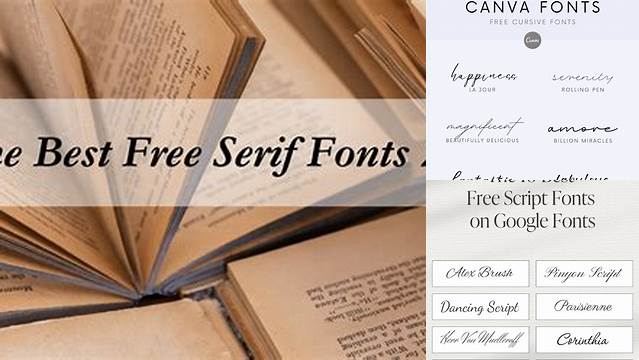
Best Free Script Fonts To Download In 2024
Are you looking for the best free script fonts to elevate your design projects? You've come to the right place! Script fonts, with their elegant and flowing strokes, can add a touch of sophistication and personality to any design. Whether you're working on wedding invitations, logos, website headers, or social media graphics, choosing the right script font can make all the difference. In this comprehensive guide, we'll explore a wide array of free script fonts, discuss their characteristics, and provide tips on how to use them effectively. We'll also delve into the nuances of script font styles, from classic calligraphy to modern brush scripts, ensuring you find the perfect font for your creative needs. So, let's dive in and discover the world of beautiful, freely available script fonts!
Understanding Script Fonts
Before we jump into the list of best free script fonts, let's first understand what makes a script font unique. Script fonts are designed to mimic the fluid strokes of handwriting, calligraphy, or brush lettering. They are characterized by their flowing lines, connecting strokes, and often, a touch of elegance or whimsy. These fonts can instantly add a personal and handcrafted feel to your designs, making them ideal for projects that require a human touch.
The beauty of script fonts lies in their diversity. You'll find everything from traditional calligraphic styles reminiscent of pen-and-ink lettering to modern brush scripts that have a more contemporary and casual vibe. Some script fonts are formal and refined, perfect for wedding invitations or upscale branding, while others are playful and energetic, suitable for children's books or social media graphics. Understanding the different styles of script fonts is crucial for selecting the right one for your project.
Moreover, it's important to consider the readability of script fonts. While their decorative nature is appealing, overly elaborate or thin scripts can be difficult to read, especially in smaller sizes or on screens. Legibility should always be a top priority, particularly when using script fonts for body text or essential information. We'll discuss tips for ensuring readability later in this guide.
Top Free Script Fonts for 2024
Now, let's get to the good stuff: the best free script fonts you can use in your projects today! This curated list includes a variety of styles to suit different design needs, ensuring you'll find something that resonates with your aesthetic. We've considered factors like readability, versatility, and overall visual appeal to bring you the cream of the crop. Remember, all the fonts listed here are free for personal and commercial use, but it's always a good idea to double-check the license before using them in your projects. Here are some standout options:
1. Brusher
Brusher is a bold and dynamic brush script that exudes energy and modernity. Its thick, textured strokes give it a hand-painted feel, making it perfect for logos, headlines, and anything that needs a touch of edginess. This free script font is particularly effective for designs that aim to stand out and make a statement. The rough, uneven edges of the letters add a unique character, setting it apart from smoother, more polished script fonts. Brusher is also highly legible, even in smaller sizes, making it a versatile choice for various applications. It works wonderfully for branding materials, social media graphics, and even apparel designs. The strong, assertive presence of Brusher ensures that your message will be heard and remembered. So, if you're looking for a script font that's both free and impactful, Brusher is definitely worth considering.
2. Sophia
Sophia is an elegant and graceful script font that embodies timeless beauty. Its delicate lines and flowing curves create a sense of sophistication, making it an excellent choice for wedding invitations, greeting cards, and other projects that require a touch of class. This free script font is characterized by its refined letterforms and subtle flourishes, adding a touch of artistry to any design. Sophia's versatility extends beyond formal occasions; it can also be used for branding, editorial design, and even website headers. The font's readability is excellent, thanks to its well-defined letter shapes and generous spacing. Using Sophia in your designs will instantly elevate them with a touch of elegance and charm. Whether you're creating a romantic invitation or a stylish logo, Sophia is a script font that will never go out of style.
3. Playlist Script
Playlist Script is a casual and playful font that perfectly captures the carefree spirit of hand-lettering. Its bouncy baseline and irregular letterforms give it a unique and charming personality, making it ideal for informal designs, social media graphics, and anything that needs a touch of fun. This free script font is particularly well-suited for projects targeting a younger audience or designs that aim to convey a relaxed and friendly vibe. Playlist Script's versatility shines through its ability to work well in both headlines and body text, thanks to its excellent readability. Whether you're designing a quirky t-shirt, a cheerful poster, or an engaging social media post, Playlist Script is a fantastic choice. Its lively and energetic character will add a touch of whimsy to your designs, making them stand out from the crowd.
4. Grand Hotel
Grand Hotel is a vintage-inspired script font that exudes retro charm and elegance. Its clean lines and classic letterforms evoke the glamour of the Art Deco era, making it perfect for logos, signage, and designs that aim to capture a sense of nostalgia. This free script font is characterized by its tall x-height and balanced proportions, ensuring excellent readability. Grand Hotel's versatility extends to various design applications, including packaging, posters, and even website headers. The font's sophisticated and timeless aesthetic makes it a reliable choice for projects that require a touch of vintage flair. Whether you're designing a retro-themed cafe menu or a stylish event poster, Grand Hotel will add a touch of old-world charm to your creations.
5. Hello Script
Hello Script is a modern and friendly script font that strikes the perfect balance between elegance and approachability. Its smooth lines and gentle curves give it a contemporary feel, making it suitable for a wide range of design projects, from branding to web design. This free script font is particularly well-suited for designs that aim to convey warmth and friendliness. Hello Script's readability is excellent, thanks to its well-defined letter shapes and consistent letter spacing. Whether you're designing a logo for a new business or creating a welcoming website header, Hello Script will help you communicate your message with style and clarity. Its versatility and modern aesthetic make it a valuable addition to any designer's toolkit.
Conclusion: Elevate Your Designs with Free Script Fonts
In conclusion, the world of free script fonts is vast and exciting, offering a wealth of options to enhance your design projects. By understanding the different styles of script fonts, considering their readability, and following the tips outlined in this guide, you can effectively incorporate these beautiful typefaces into your work. Remember to prioritize legibility, pair fonts wisely, and use script fonts strategically to create visually appealing and impactful designs. So, go ahead and explore the best free script fonts available, and let your creativity flow! With the right font, you can add a touch of elegance, personality, and handcrafted charm to any project. Happy designing, guys!